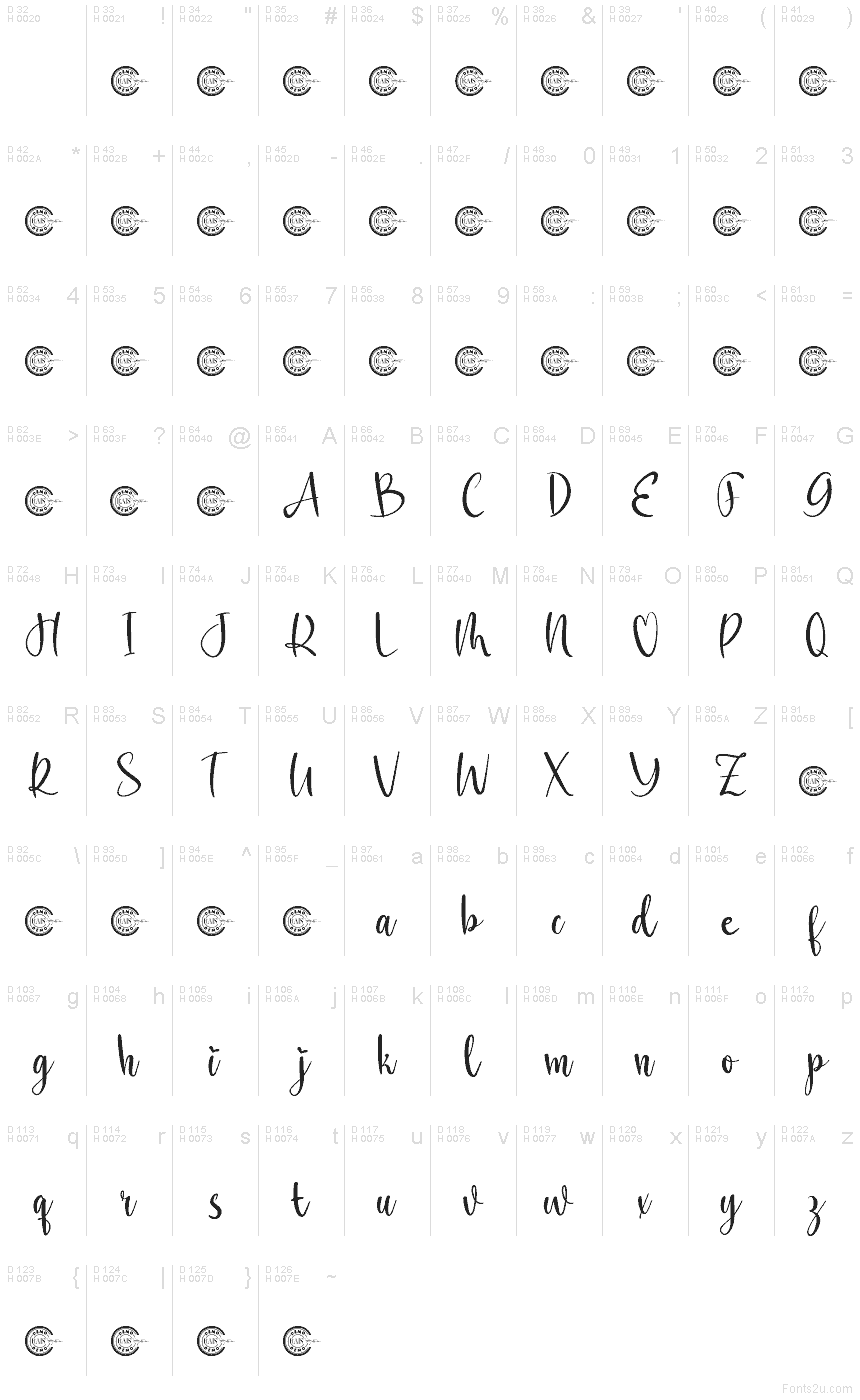
Love Harmonic font by RaisProject is a free brush script typeface that feels like ink still drying on thick, textured paper. Its looping strokes, loose connections, and soft, slightly irregular curves give every word a hand-lettered warmth, like something written in a keepsake journal or on a love note. Letters dance together with a gentle rhythm that’s playful but still legible, making it easy to set romantic, expressive titles without losing clarity.
Using Love Harmonic, you can bring a tender, handcrafted touch to wedding invitations, save-the-dates, greeting cards, brand logos, packaging, quotes, and social media posts. This free font shines when used large for headings, paired with a clean sans serif for the small supporting text. Keep plenty of breathing room around it, and let those flowing curves and brush textures carry the emotional tone of your design.